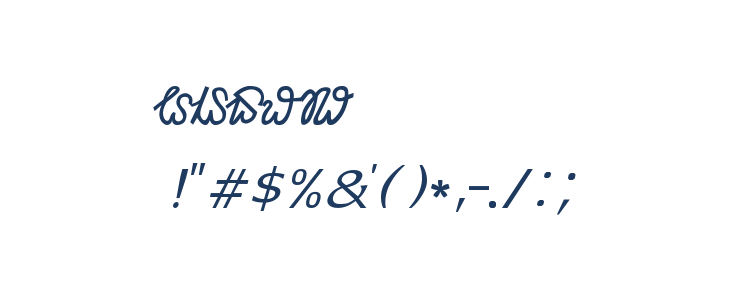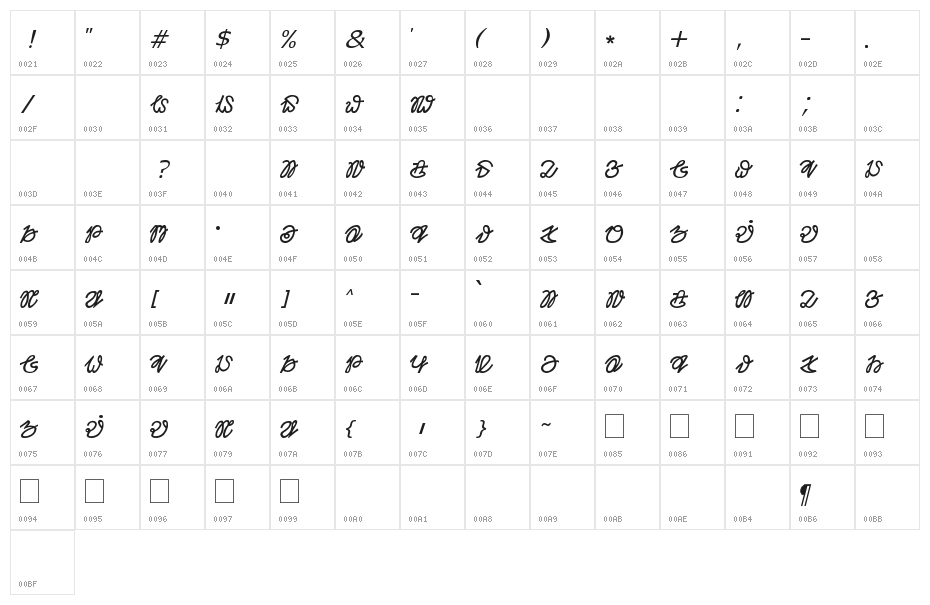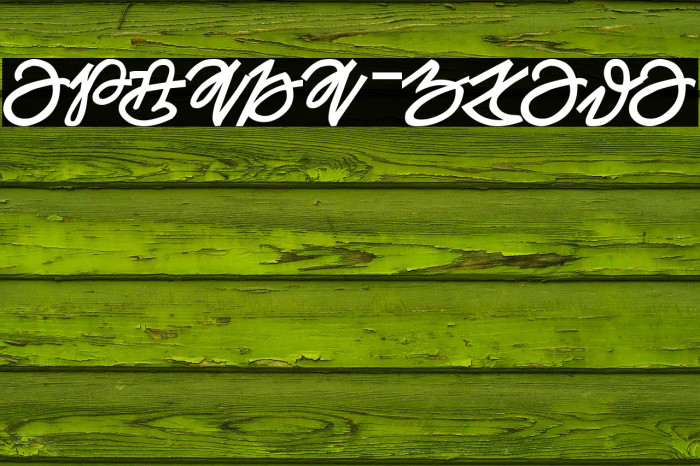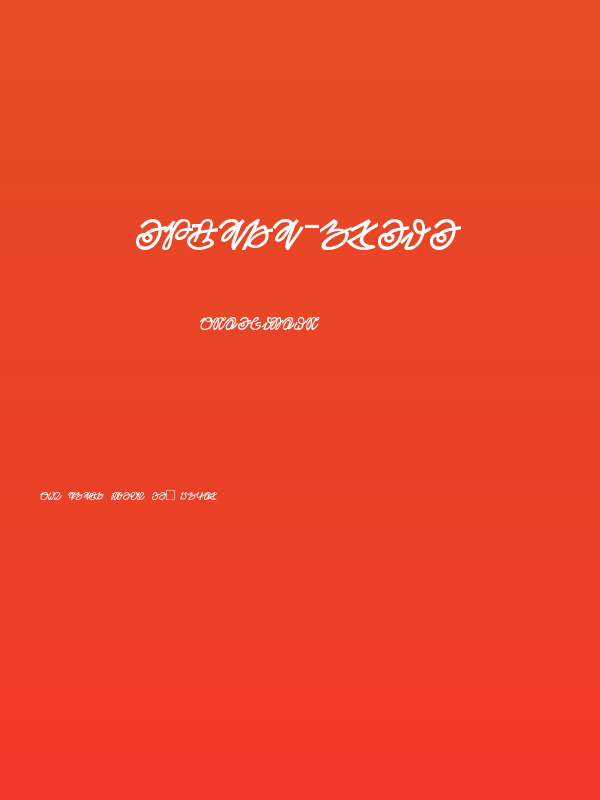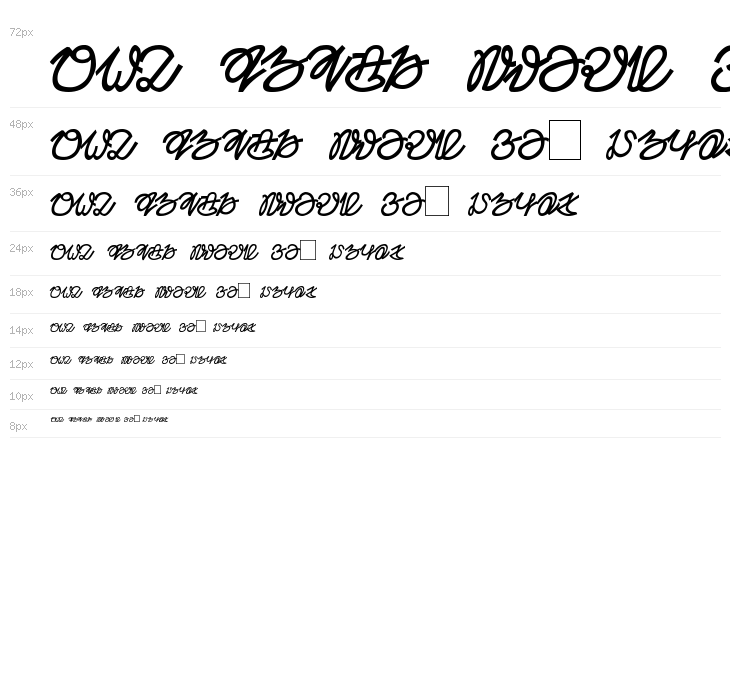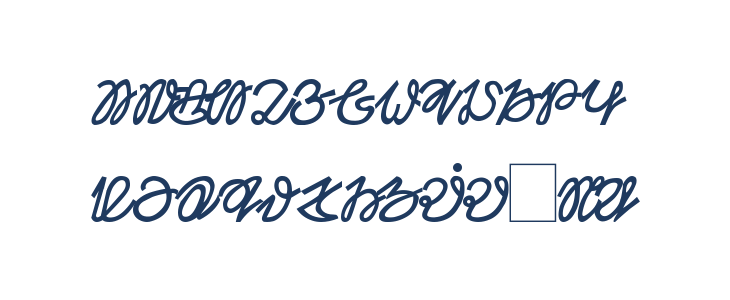
olciki_usoro Font
olciki_usoro Description
This font features a highly decorative and cursive style, characterized by its flowing, interconnected letterforms. The strokes are bold and consistent, with a smooth, elegant appearance that suggests a handwritten quality. The uppercase and lowercase letters maintain a uniform style, with loops and swirls that enhance its ornamental nature. The numbers and special characters are equally stylized, ensuring a cohesive look across all elements. This font is ideal for projects that require a touch of sophistication and artistic flair.